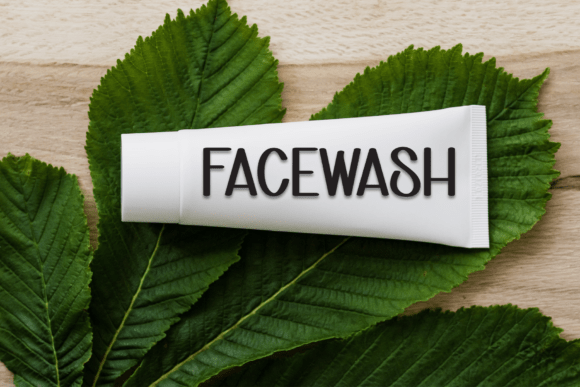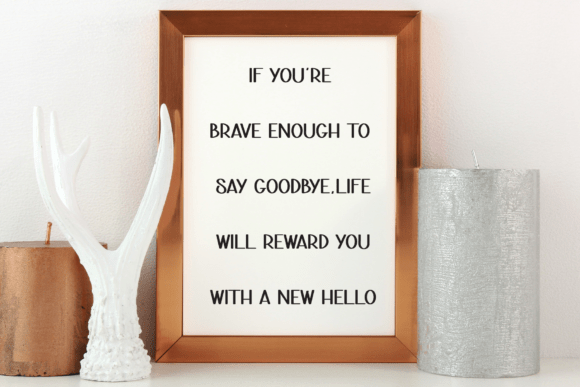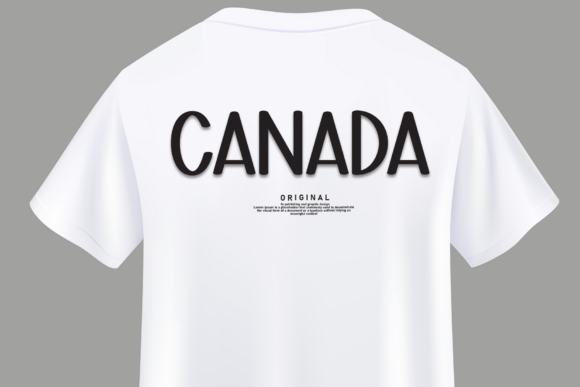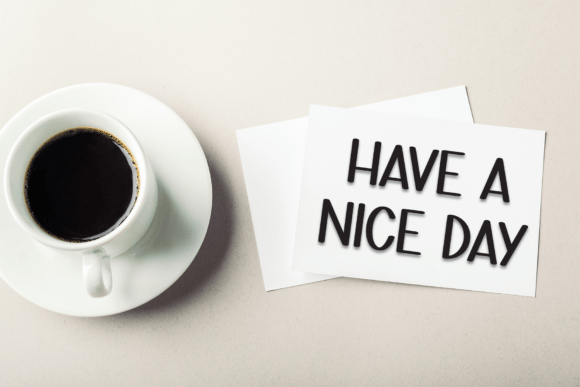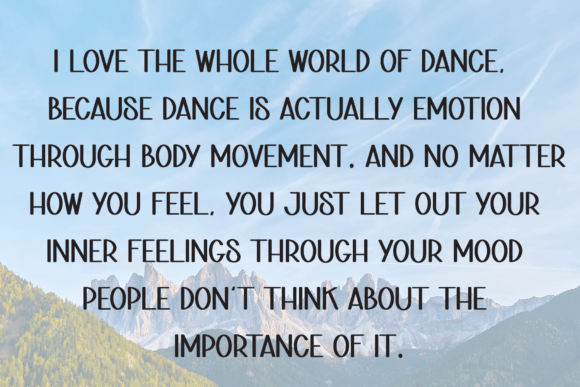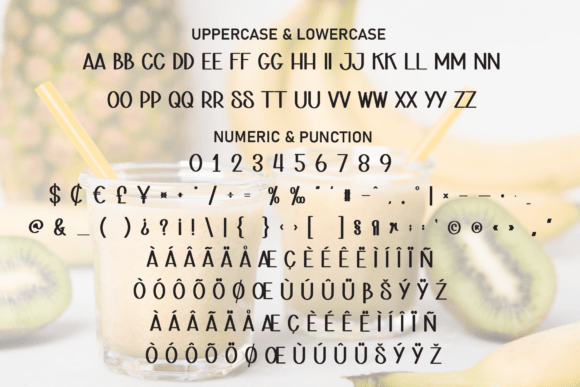
Introducing Banana Smoothie Font: The Perfect Blend of Fun and Modernity
Are you tired of using the same old fonts for your designs? Look no further! Banana Smoothie Font is here to shake things up with its fresh, fun, and energetic vibe. This playful display font is perfect for designers and crafters who want to add a delightful touch to their projects.
What Makes Banana Smoothie Font So Special?
Banana Smoothie Font is a modern take on traditional fonts, with smooth, rounded letters that bring a friendly and inviting feel to any design. Its unique blend of playfulness and sophistication makes it perfect for a wide range of applications, from food branding and social media to packaging, children’s books, and cheerful designs.
The Perfect Font for Food Branding
Food branding requires a font that is not only visually appealing but also conveys a sense of freshness and quality. Banana Smoothie Font is the perfect choice for food bloggers, restaurants, and food manufacturers who want to add a touch of personality to their brand. Its smooth, rounded letters evoke feelings of warmth and approachability, making it perfect for brands that want to connect with their customers on a personal level.
Elevate Your Social Media Game with Banana Smoothie Font
Social media is all about standing out from the crowd, and Banana Smoothie Font can help you do just that. Whether you’re designing graphics for Instagram, Facebook, or Twitter, this font adds a fun and playful touch that is sure to grab attention. Its modern and energetic vibe makes it perfect for creating engaging social media content that resonates with your audience.
Packaging, Children’s Books, and More!
Banana Smoothie Font is not just limited to food branding and social media. Its versatility makes it perfect for a wide range of applications, including:
- Packaging: Add a touch of personality to your product packaging with Banana Smoothie Font.
- Children’s Books: Create engaging and fun stories for kids with this playful font.
- Cheerful Designs: Perfect for designing posters, flyers, and brochures for summer events, cafes, and vibrant logos.
Why Choose Banana Smoothie Font?
So, why choose Banana Smoothie Font over other fonts? Here are just a few reasons:
- Unique and Playful: Banana Smoothie Font is a one-of-a-kind font that adds a touch of playfulness to any design.
- Modern and Energetic: Its modern and energetic vibe makes it perfect for designs that require a fresh and youthful feel.
- Easy to Read: The smooth, rounded letters make it easy to read, even at small sizes.
- Versatile: Perfect for a wide range of applications, from food branding to packaging and children’s books.
Tips for Using Banana Smoothie Font
Here are a few tips for getting the most out of Banana Smoothie Font:
- Pair it with Other Fonts: Experiment with pairing Banana Smoothie Font with other fonts to create a unique and visually appealing design.
- Use it in Headings: Use Banana Smoothie Font in headings and titles to add a touch of personality to your design.
- Experiment with Colors: Try out different colors and color combinations to see what works best with Banana Smoothie Font.
In conclusion, Banana Smoothie Font is a fresh, fun, and energetic font that is perfect for designers and crafters who want to add a delightful touch to their projects. Its smooth, rounded letters bring a friendly and inviting feel, making it perfect for food branding, social media, packaging, children’s books, and cheerful designs. So why wait? Try Banana Smoothie Font today and see the difference it can make in your designs!